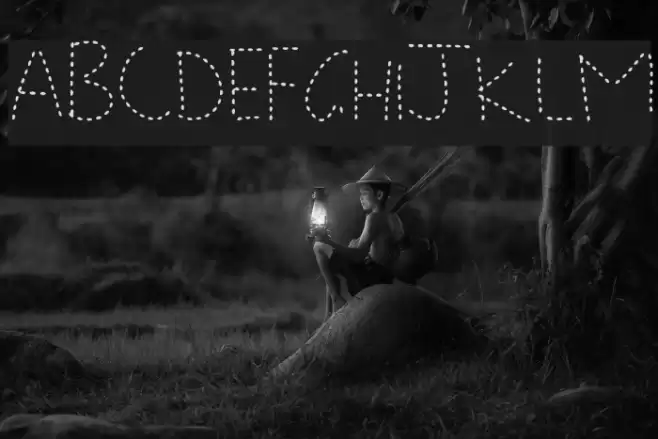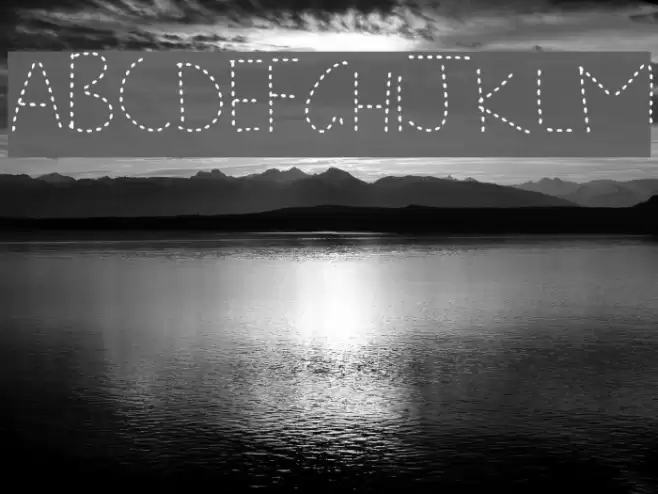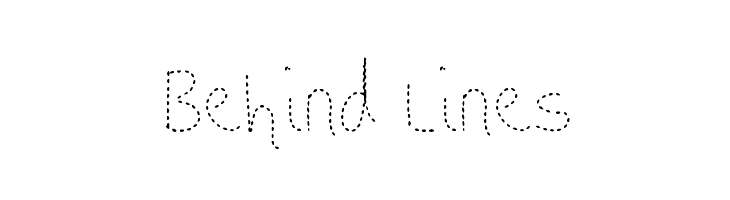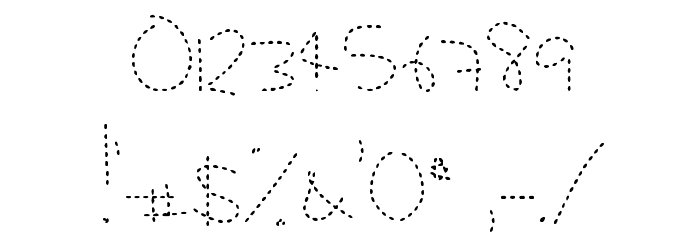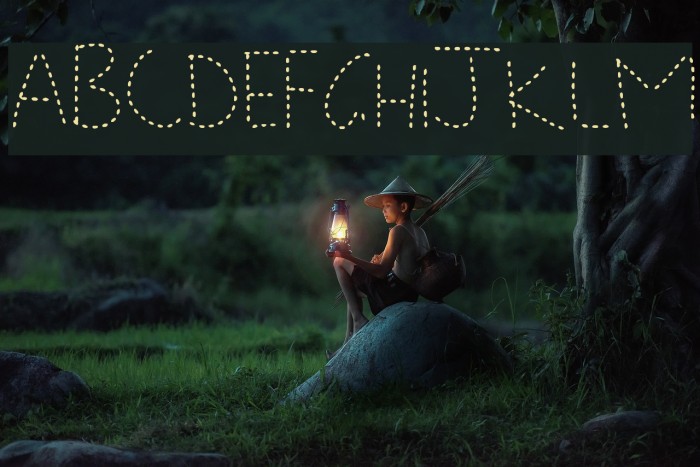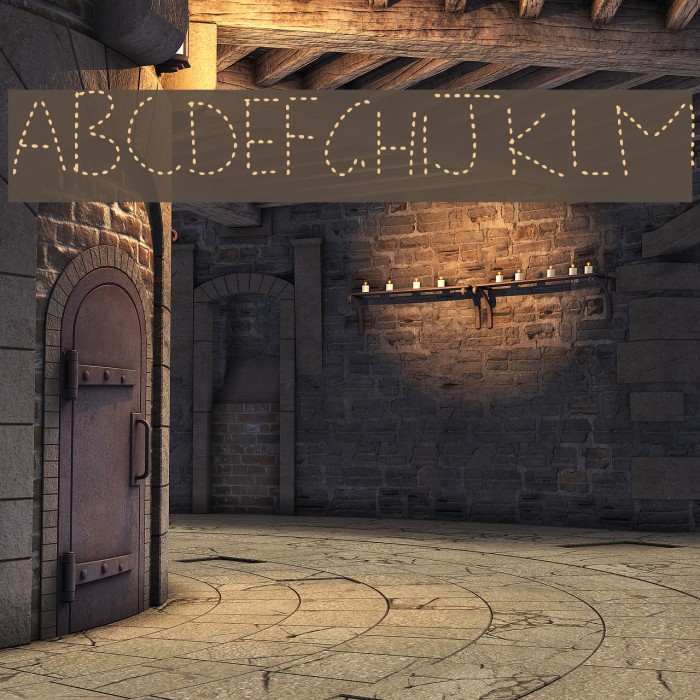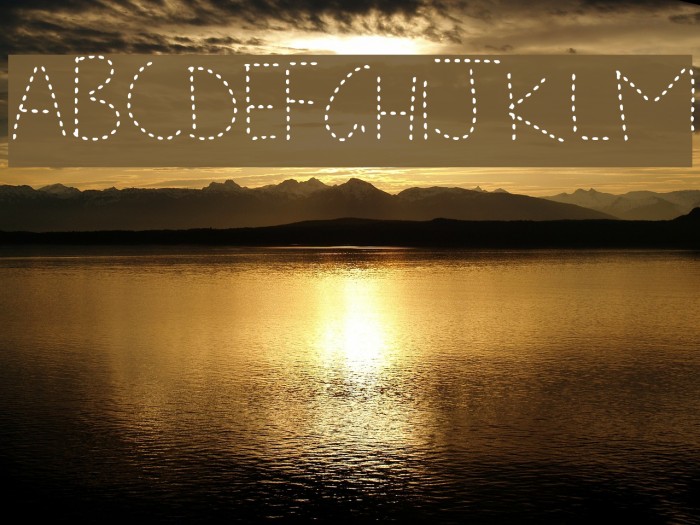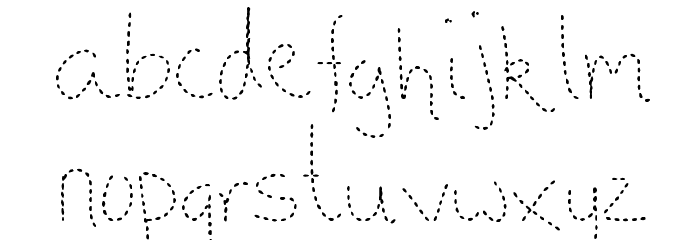
Behind Lines Font
Behind Lines Description
This font features a unique dotted line style, creating a playful and informal appearance. Each character is composed of evenly spaced dots, giving it a whimsical and light-hearted feel. The uppercase and lowercase letters maintain consistent spacing and size, while the numbers and special characters follow the same dotted pattern. This design is reminiscent of tracing paper exercises, making it ideal for educational or children's projects. The overall look is clean and minimalistic, yet distinct due to its dotted construction.
A playful dotted line font ideal for educational and children's projects from Uncategorized fonts.
- Proposed Projects: Perfect for educational materials, children's books, playful branding, and creative design projects.
- Overall Style: Playful, Informal
- Use Case: Headlines, Educational materials, Children's books